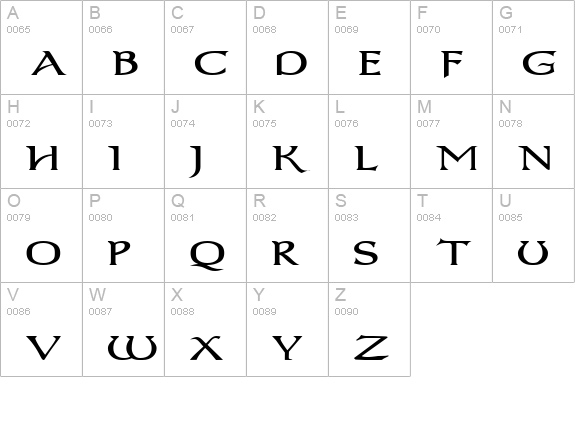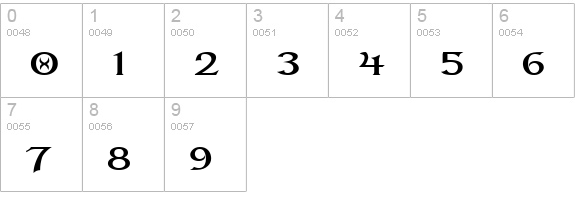
Dumbledor 2 Wide is a distinctive, extended-width variant in the Dumbledor typeface family \xE2\x80\x94 well suited to design and typography projects.
Dumbledor 2 Wide font is a bold and eye-catching typeface that exudes a sense of strength and elegance. With its wide letterforms and distinctive serifs, this font makes a bold statement in any design project. Whether you're looking to add a touch of sophistication to your branding, advertising, or editorial materials, Dumbledor 2 Wide font is sure to impress. The best part? Dumbledor 2 Wide font is completely free to download at FontsMarket.com. This means you can elevate your designs without having to worry about breaking the bank. So why wait? Download Dumbledor 2 Wide font today and take your projects to the next level with this stunning typeface.